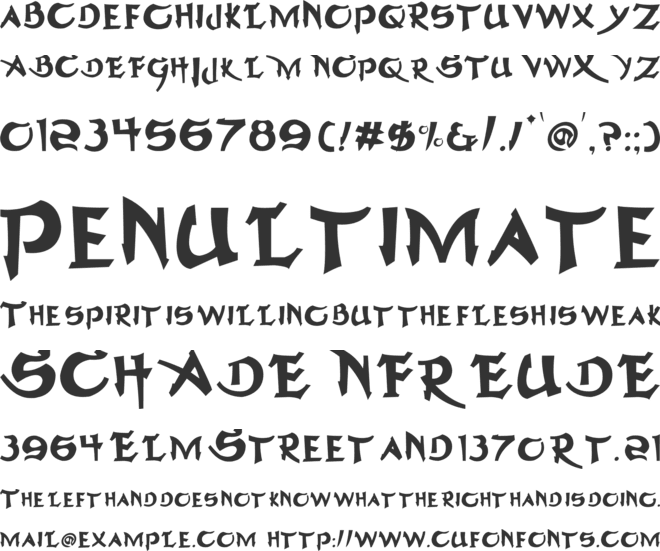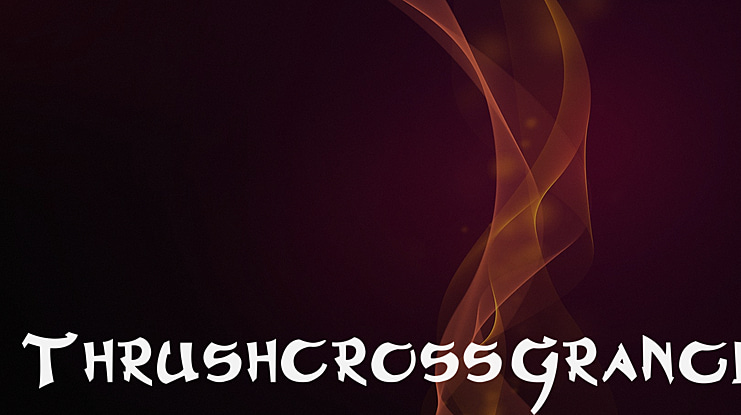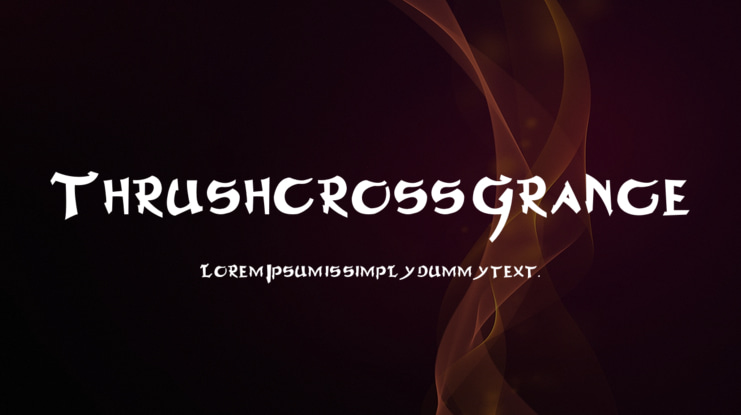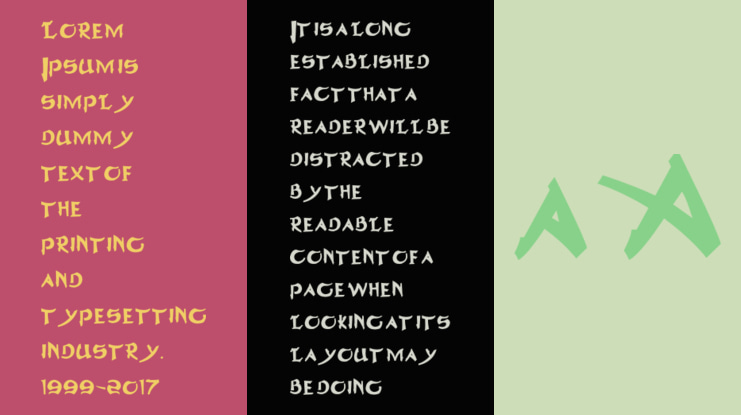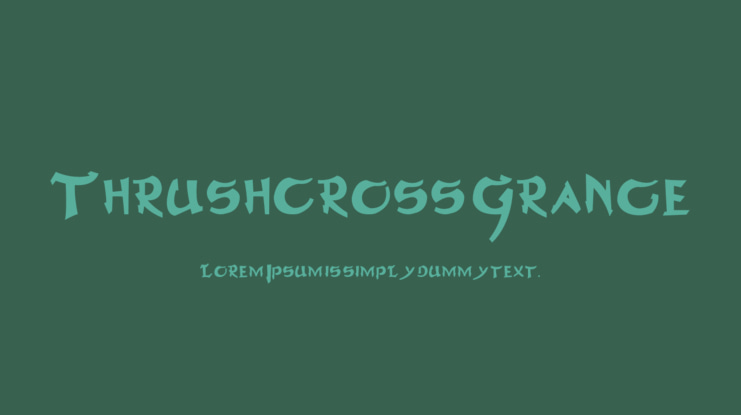
Thrushcross Grange is an accurate recreation of the glyphs from a beloved 1970s record cover. As a result, it has a number of issues with it, as it appears to have been nothing more than hand lettering and never intended to be a standing font at all. At the request of the person who had wanted it, I intentionally kept the issues in.
If you would like to see a more modernized version with all the bugs worked out, please let me know. The problems bother me as well and I'm halfway tempted to make a "pro" version someday that irons out all the kinks.